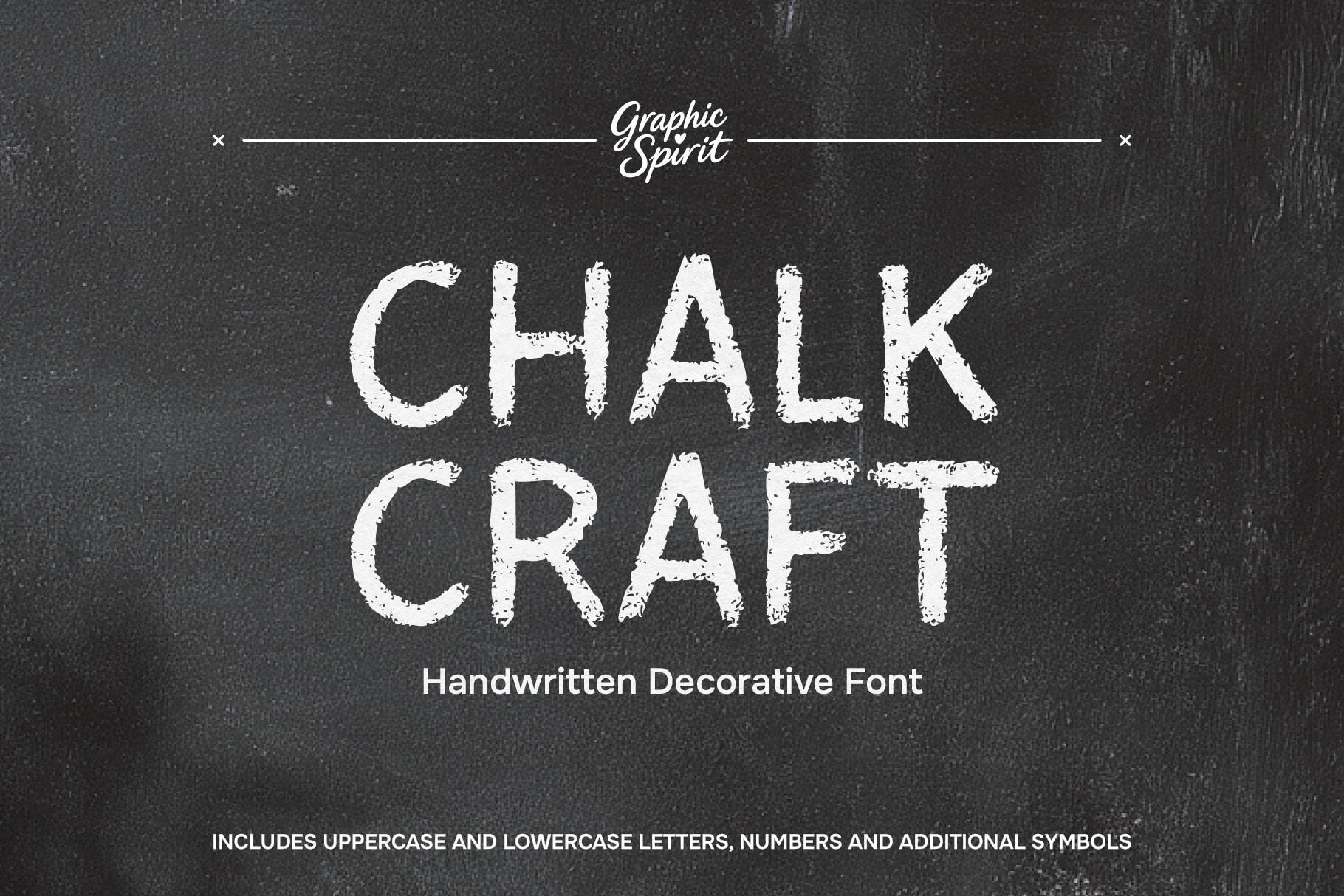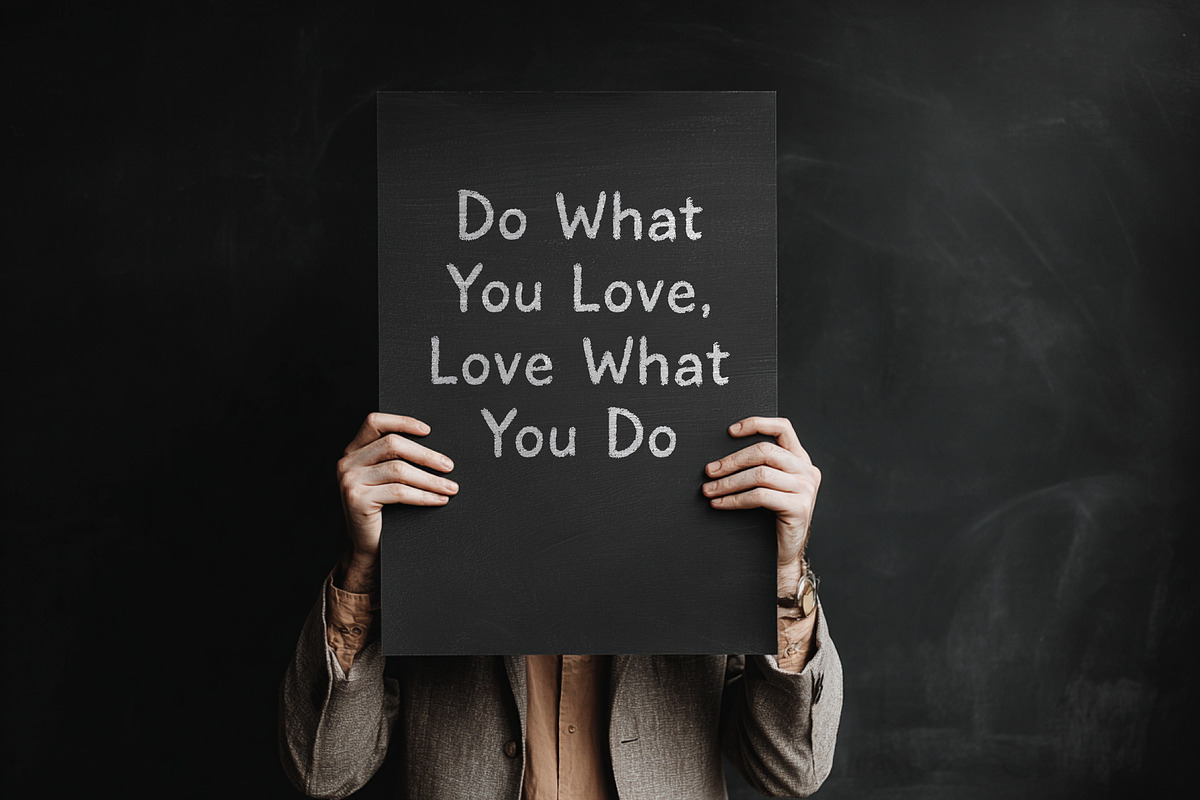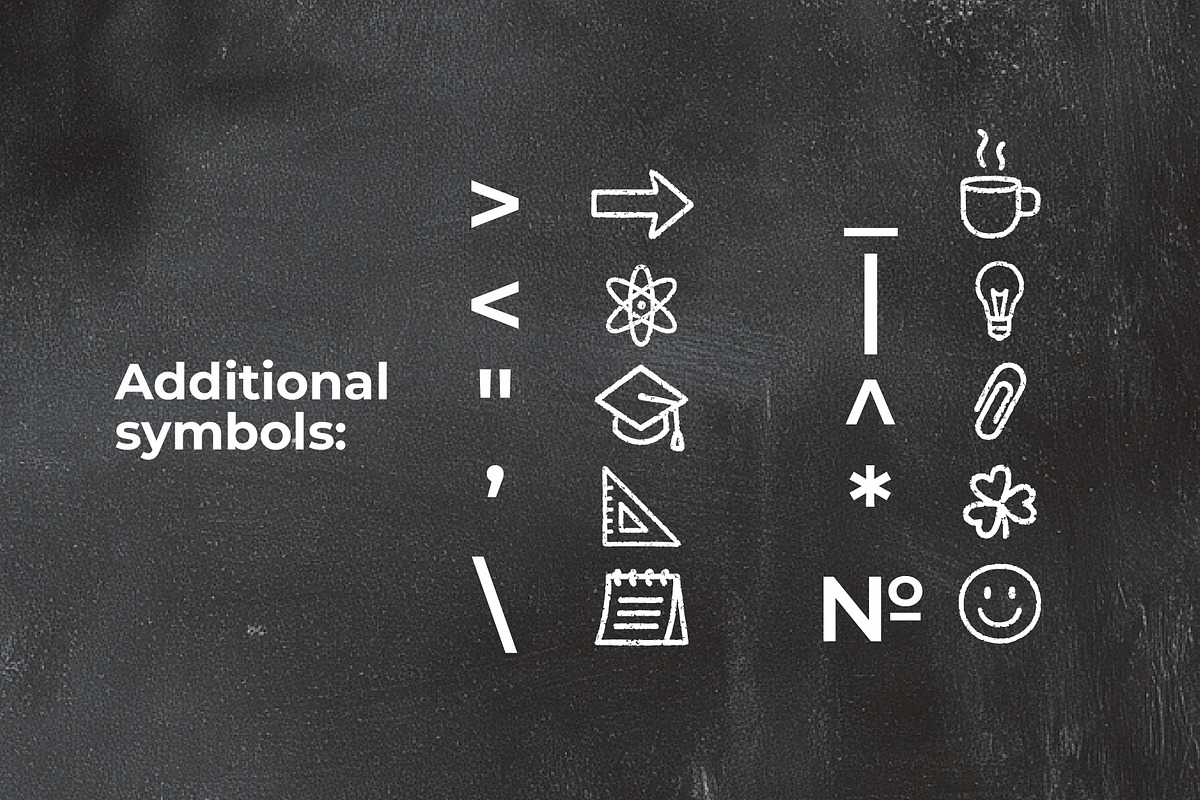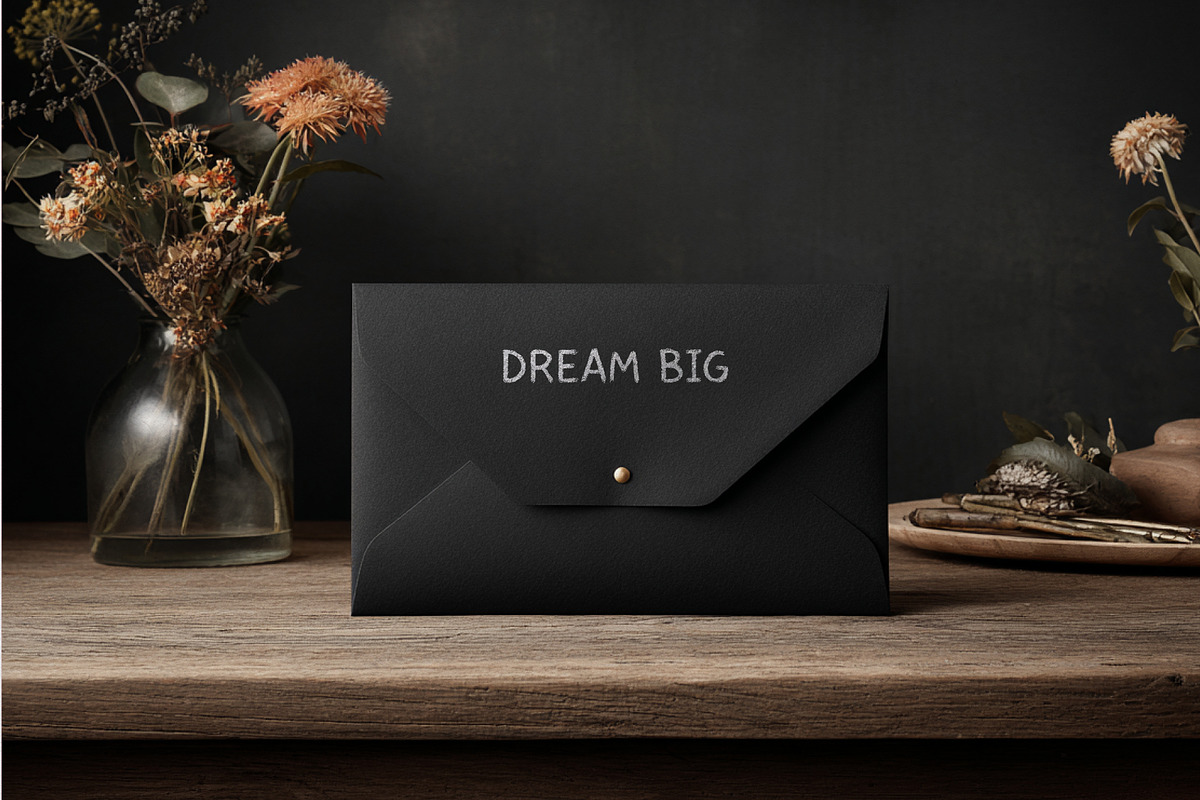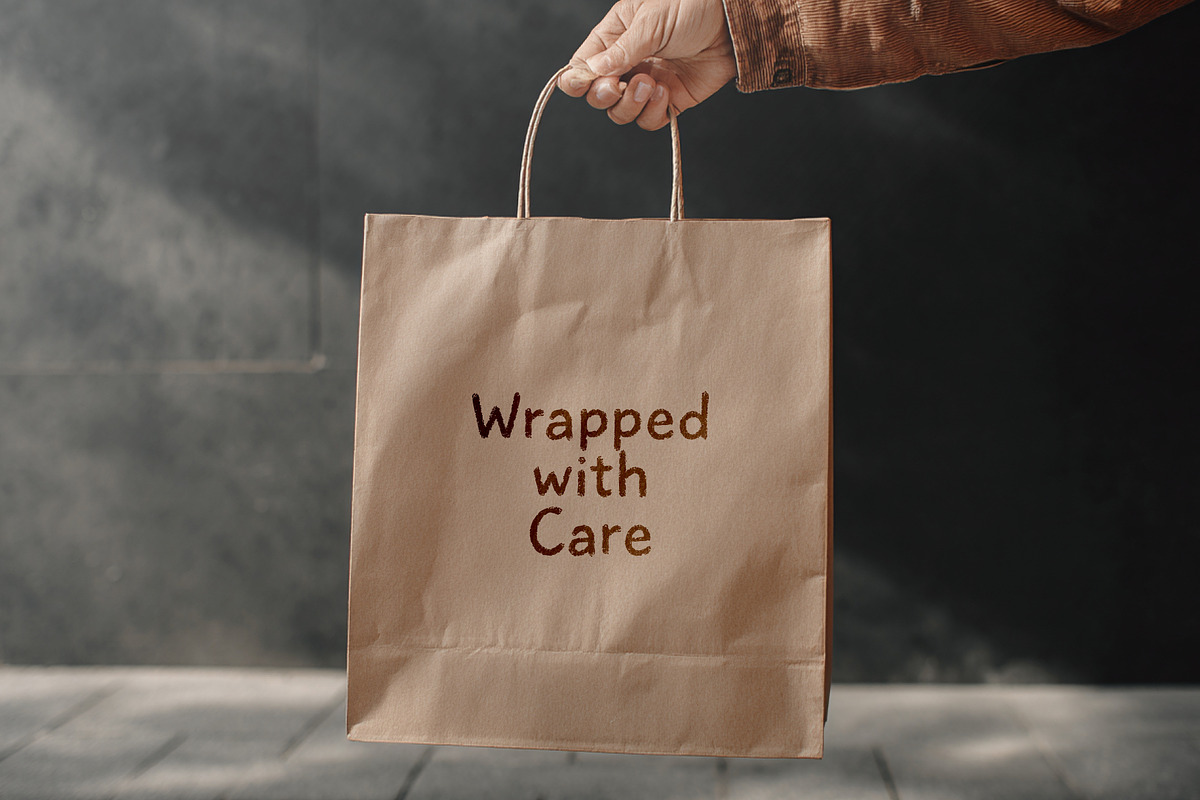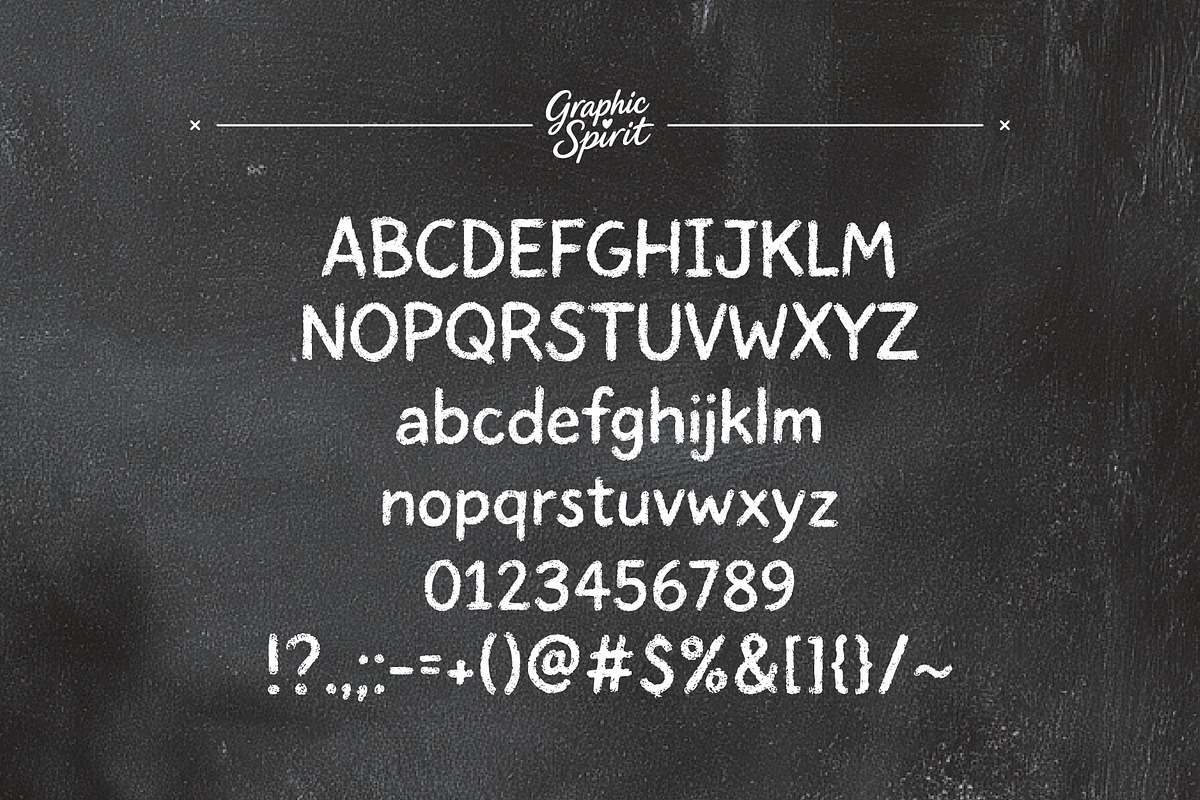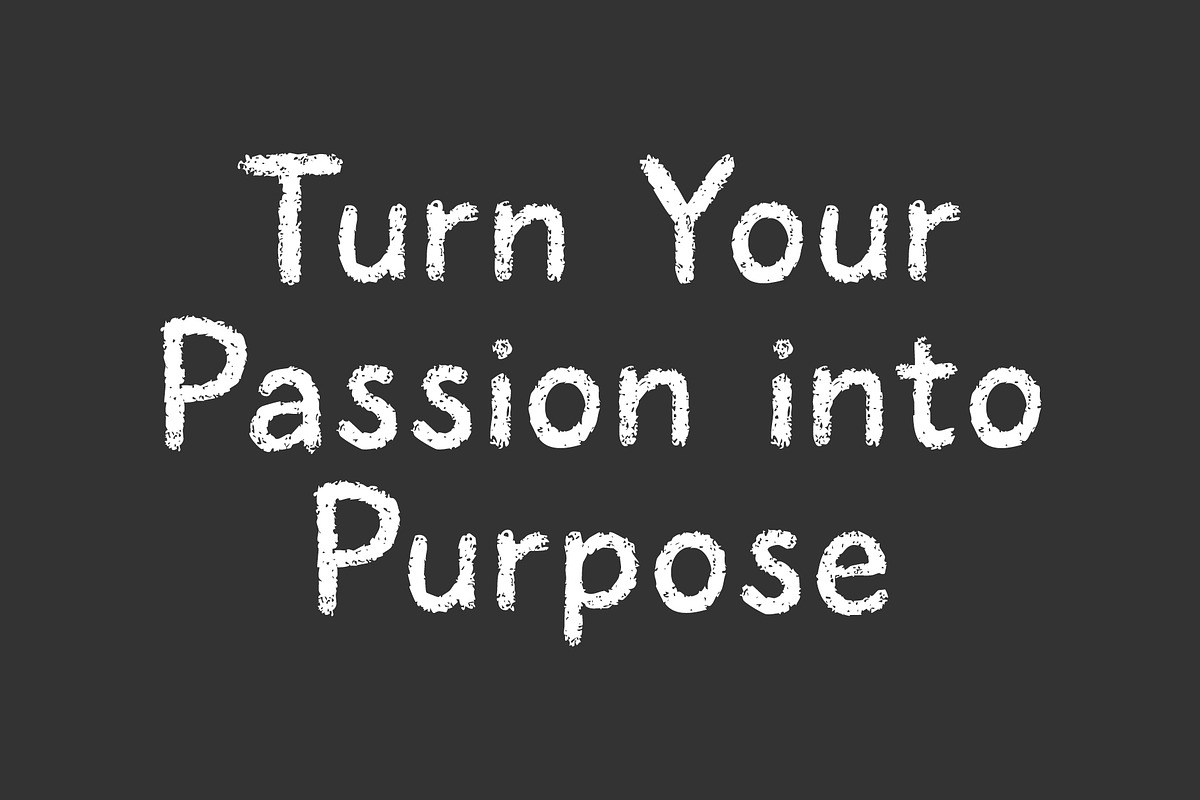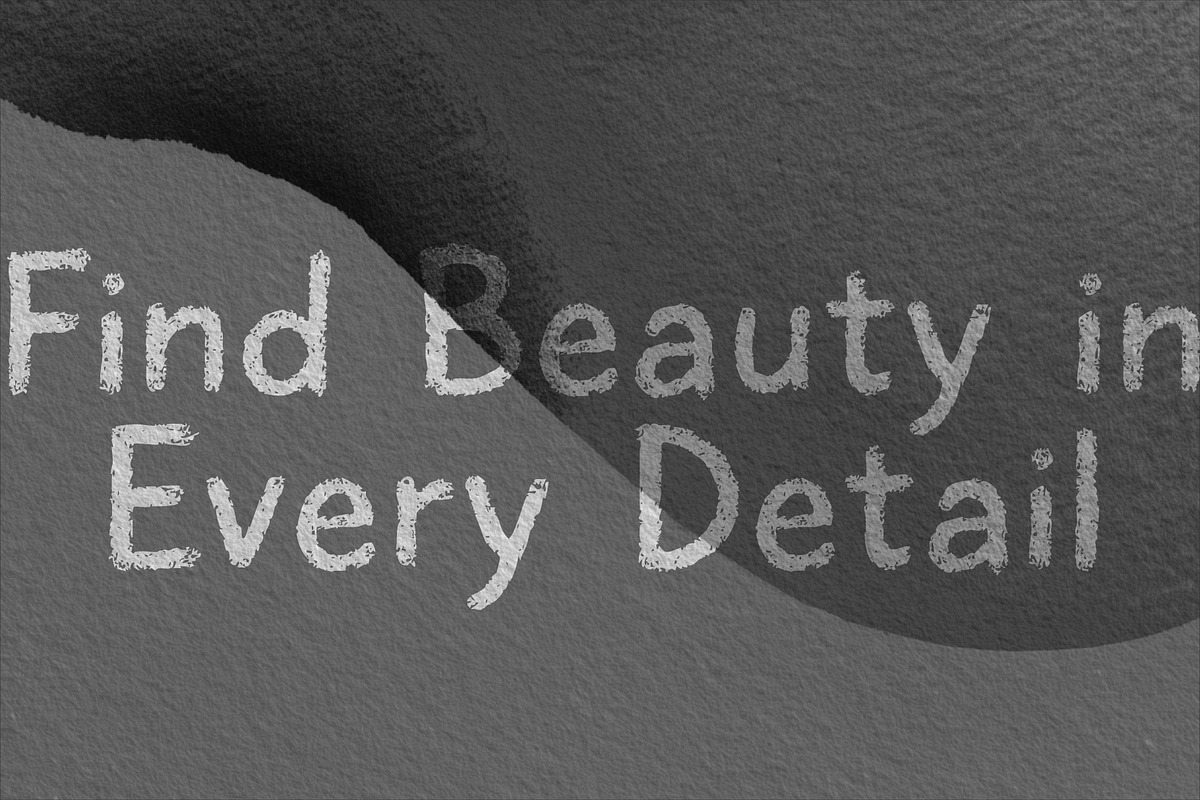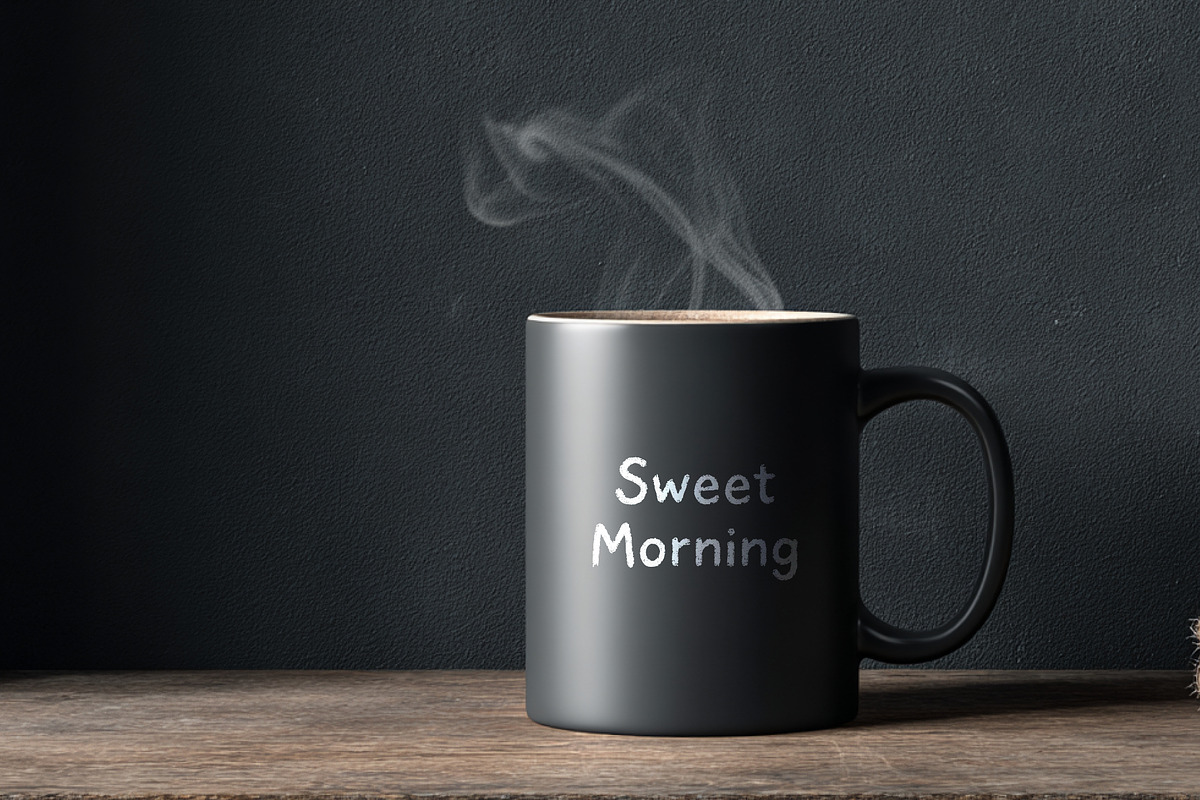
Chalk Craft Handwritten Font
✨Add a touch of authentic classroom charm to your designs with Chalk Craft. This handwritten decorative font features playful, irregular letterforms and subtle texture, perfectly capturing the look of real chalk on a blackboard.📝
Ideal for nostalgic quotes, educational materials, cafe menus, and children’s party decor. This digital download includes uppercase, lowercase, numerals, and punctuation, giving you everything needed to create warm, inviting projects that truly stand out.✨